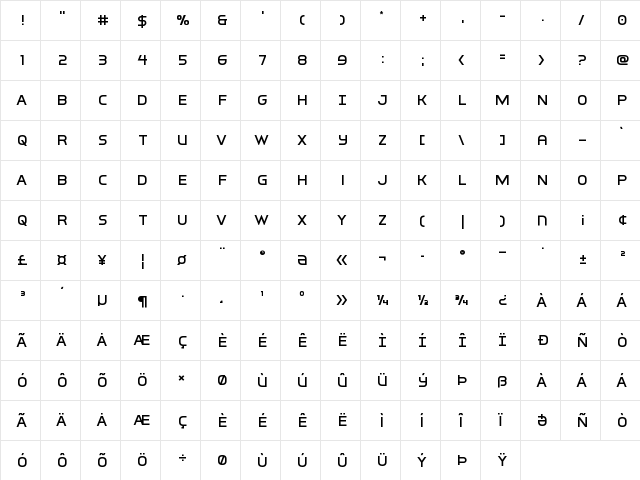
Inter-Bureau Title Regular
Design Context for Inter-Bureau Title Typeface
Inter-Bureau Title offers clean, dependable letterforms without strong stylistic allegiance, making it a practical choice for designers who need flexibility.